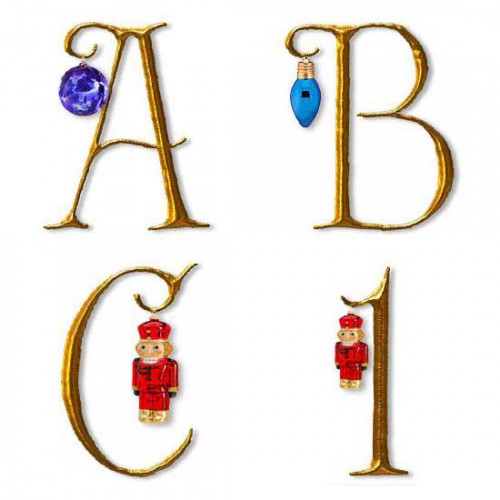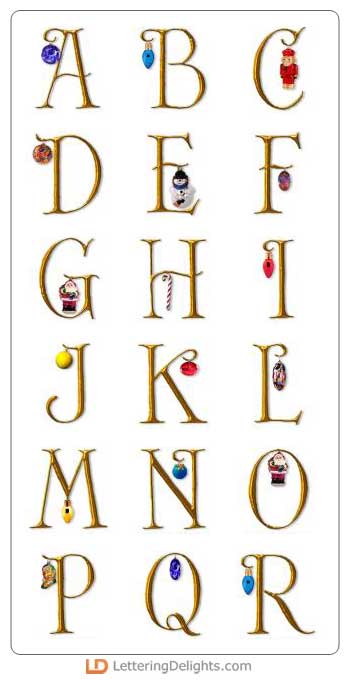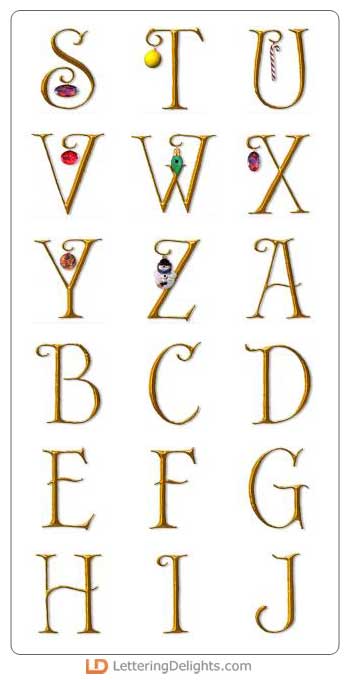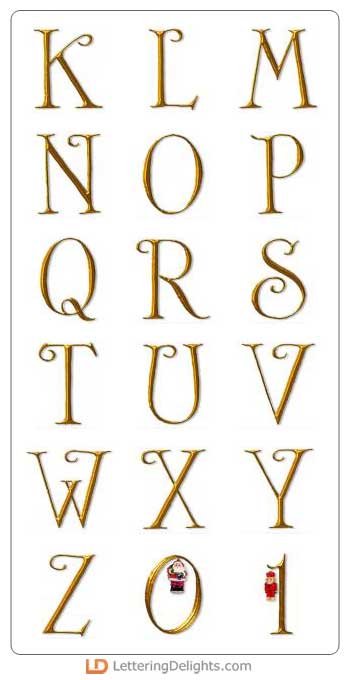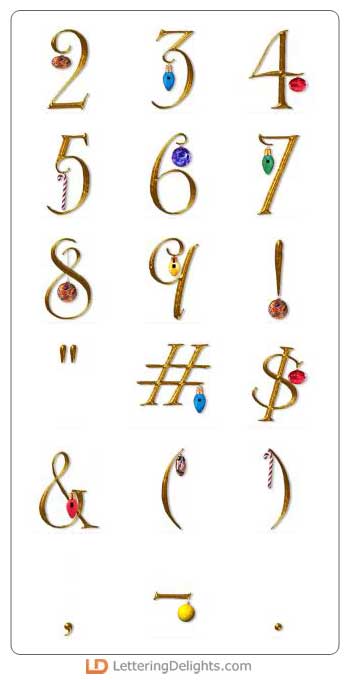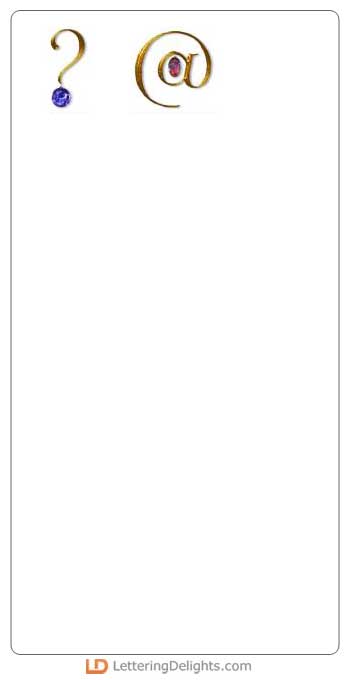
The lowercase letters of this alphabet are a beautiful gold color. The uppercase letters of this alphabet are the same beautiful gold color, but each have a hanging Christmas ornament.